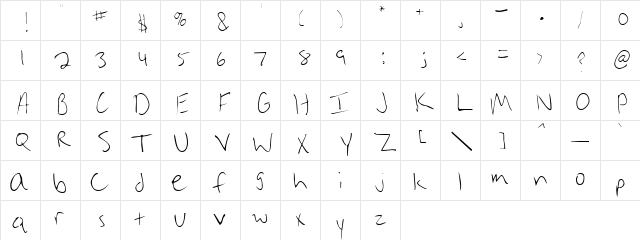
Cindrella Regular
Design Context for Cindrella Typeface
Cindrella is a composed and adaptable typeface that performs quietly and consistently across a wide range of design contexts.